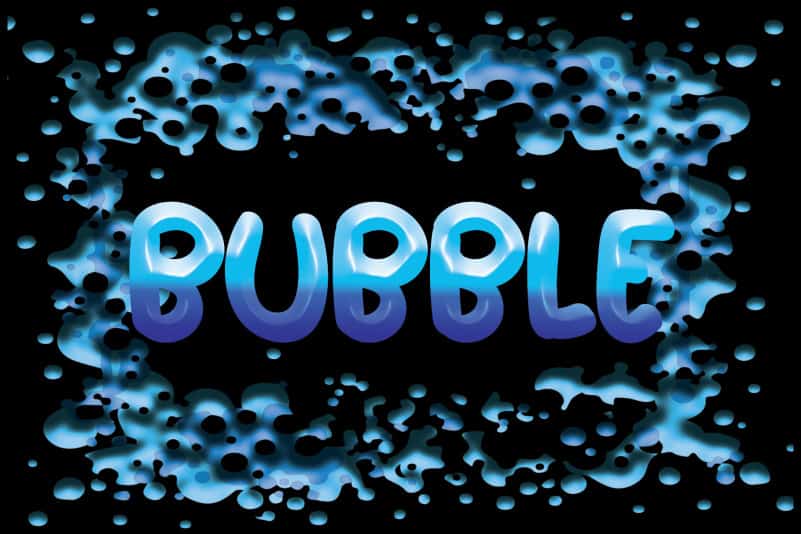
Circle Display Font
Circle Display Font is a bold and simple display font. Simple and easy to use, this font will be very beautiful if you mix it with your various craft designs.
Erik Studio